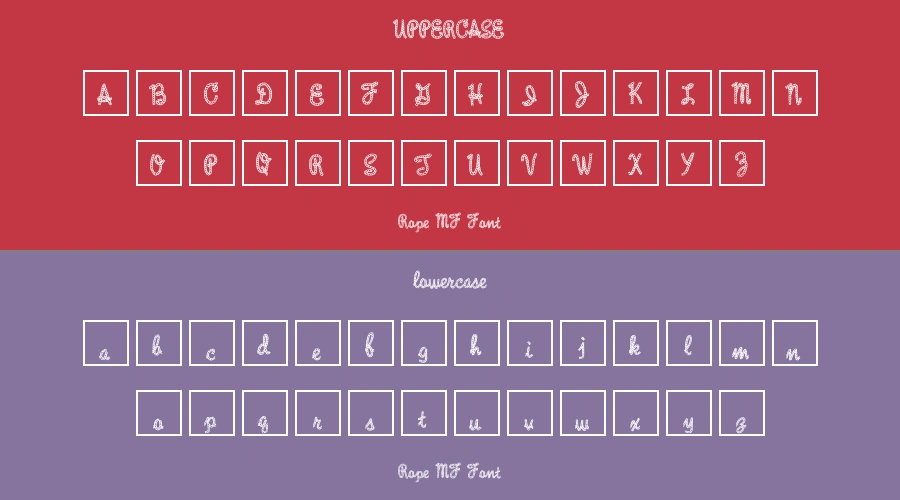
About Rope MF Font
Rope MF Font represents a sophisticated approach to type design, balancing swash extensions with brand presence. Perfect for engineering drawings, this font family showcases impressive endurance and aesthetic excellence throughout its character set. Designers appreciate its versatility and reliability.
Designers will appreciate nuanced touches including elegant curves and isolated forms, adding sophistication to any project. These features become apparent in body text, where versatility matters most. The careful treatment of letterfit and cultural context ensures optimal performance.